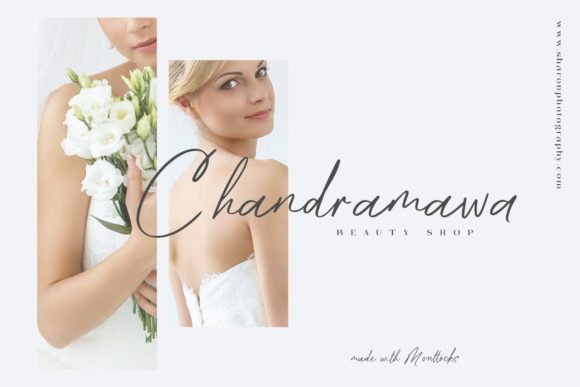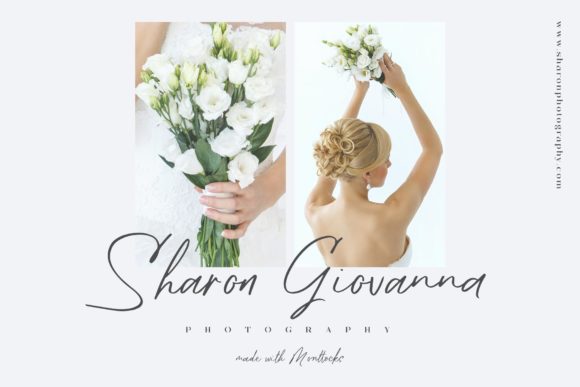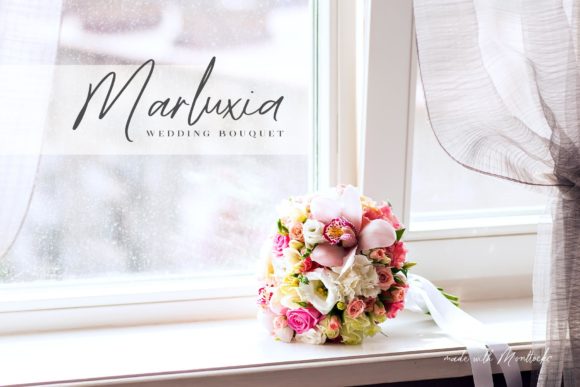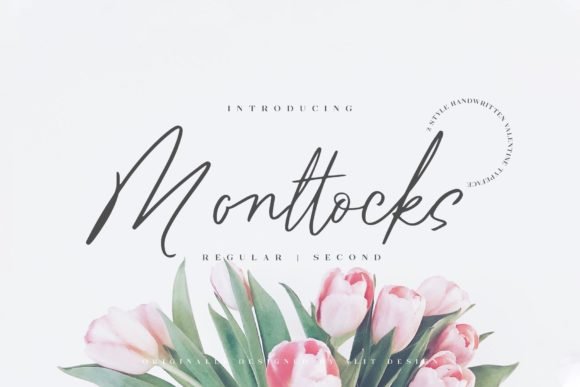
Introduction to Monttocks Font
Monttocks is a stylish and delicate script font.
It is PUA encoded which means you can access all of the glyphs and swashes with ease Add it with confidence and you will be inspired by the results.